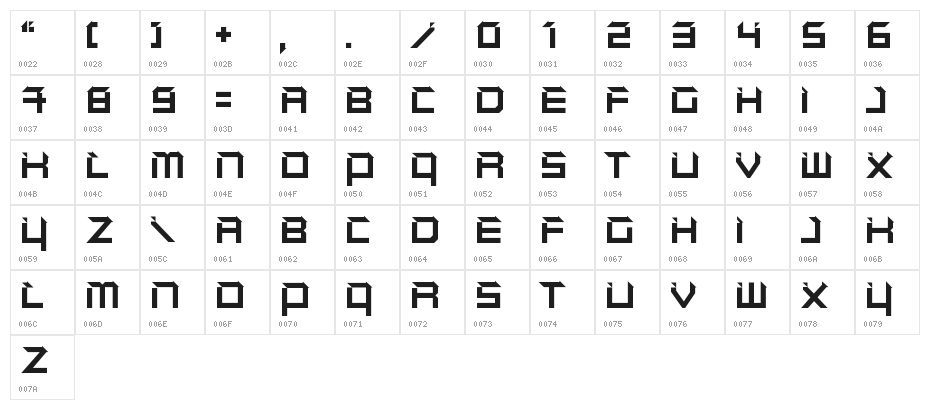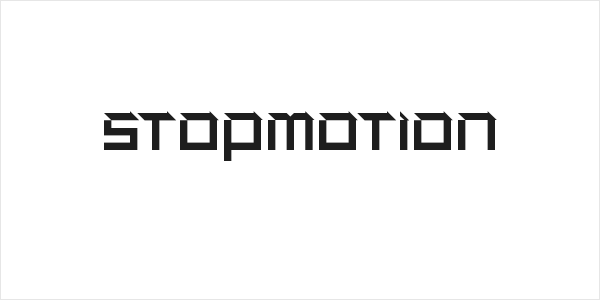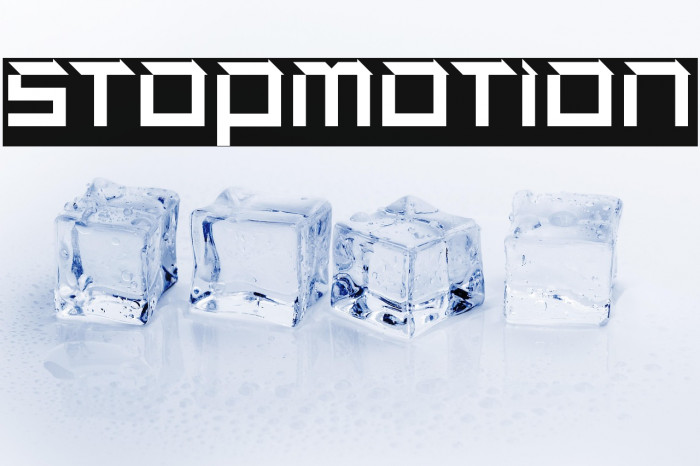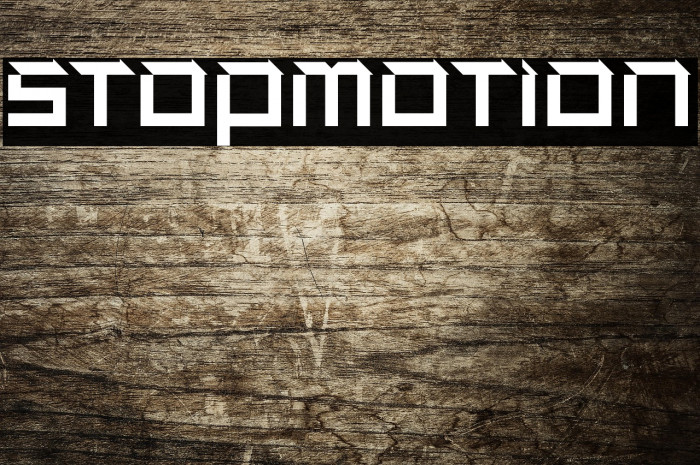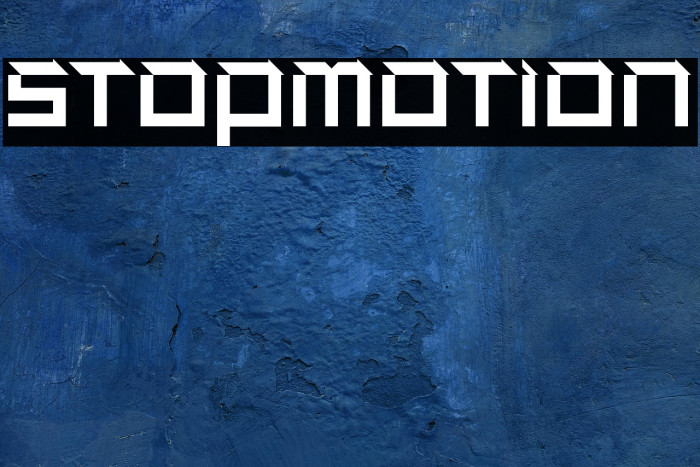
Stopmotion Font
Stopmotion Description
This font features a bold, geometric design with sharp angles and a futuristic aesthetic. The characters are constructed with a consistent thickness, giving it a uniform appearance. The angular cuts and straight lines create a sense of movement and modernity, making it stand out in any design. The uppercase and lowercase letters maintain a similar structure, enhancing the cohesive look. Numbers and special characters are designed to match the overall style, ensuring versatility across different applications.
| Proposed Projects | Ideal for sci-fi themed projects, video game titles, technology branding, and modern posters. |